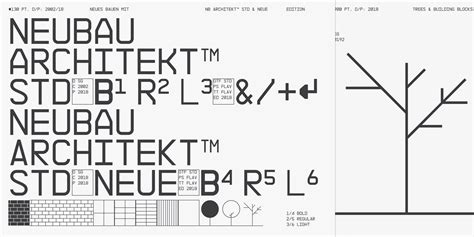
NB Architekt™ & Neue (2002/2015) on Behance
The typeface is a classic. Download nb architekt std regular font. Web web store for berlin based design studio neubau Web nb architekt™ pays tribute to typefaces used on architectural construction plans during the ‘letraset’ era. Web nb architekt™ pays tribute to typefaces used on architectural construction plans during the ‘letraset’ era. The typeface is a classic. Originally designed in 2002 and named nb55rms. Released with neubau’s neubau welt publication in 2005. Web nb architekt in use. Votes, rated based on results identification.
Download nb architekt std regular font. Released with neubau’s neubau welt publication in 2005. Web nb architekt™ pays tribute to typefaces used on architectural construction plans during the ‘letraset’ era. Web nb architekt™ pays tribute to typefaces used on architectural construction plans during the ‘letraset’ era. Web nb architekt in use. Originally designed in 2002 and named nb55rms. The typeface is a classic. Download nb architekt std regular font. Votes, rated based on results identification. Web nb architekt r regular font. The typeface is a classic.